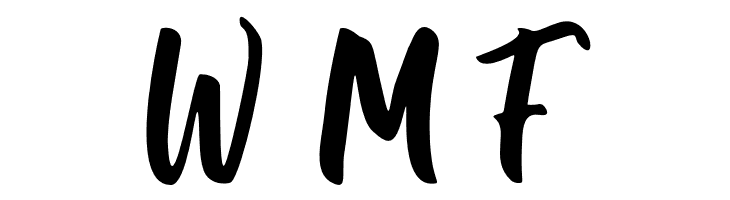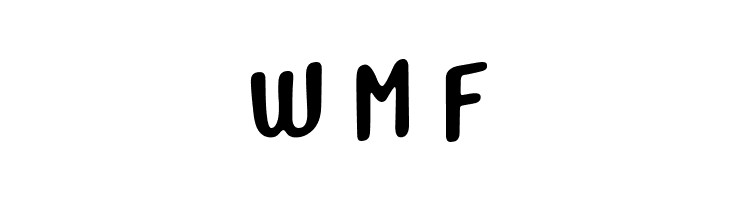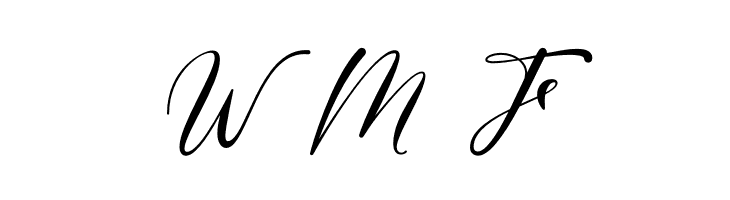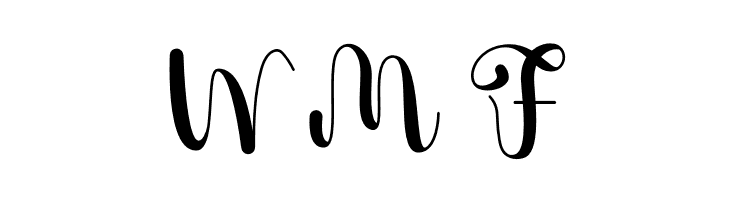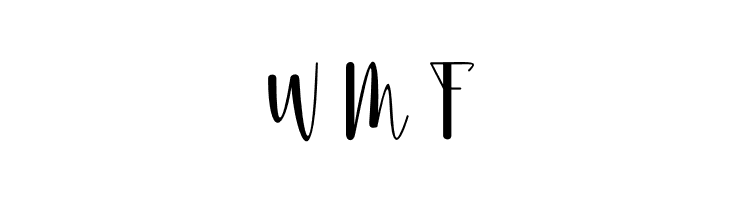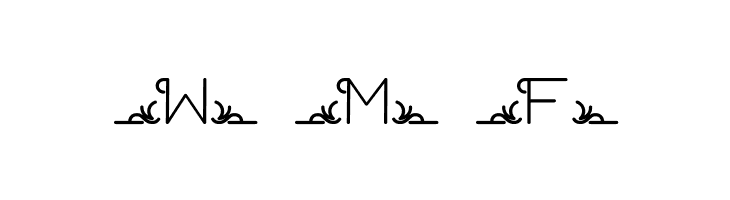
• Deep Shadow Under
A bold, shadowed font with a three-dimensional effect, perfect for impactful designs.
• Deeproxx
A dynamic and fluid script font with elegant curves and a playful style.
• Defgik Serif Regular
A modern serif font with high contrast and elegant serifs.
• Defitta
A lively and elegant script font with flowing curves and dynamic slant.
• DEGANISIOUS DEMO 3
A bold, brushstroke font with sharp, jagged edges and an energetic style.
• Degrasi
A dynamic and elegant script font with fluid strokes and sophisticated flair.
• DehorsDisplay
A bold, vintage-style font with ornamental serifs and a gothic flair.
• Dekker clark Regular
A bold, handwritten font with a playful and dynamic style.
• Delaney Nicholas
A bold, expressive handwritten font with fluid, dynamic strokes.
• Delaney Nicholas
A bold, expressive handwritten font with dynamic strokes and a casual style.
• Delanggi Script
An elegant script font with flowing, handwritten characters.
• Delaproza
A classic serif font with elegant, elongated strokes and sharp serifs.
• delave
An ornate, decorative font with floral embellishments and vintage calligraphy style.
• Delicate1
A delicate, flowing script font with elegant, thin strokes and graceful curves.
• Delicated
An elegant, flowing script font with cursive letterforms and decorative flourishes.
• Delight Cookies
A playful, hand-drawn font with tall, narrow letters and a whimsical style.
• Delight day
A playful, handwritten-style font with dynamic, tall letters and creative flair.
• Delighted Panda
A playful, hand-drawn font with tall, narrow letters and a whimsical style.
• Delighters
A bold, dynamic script font with flowing, cursive letters.
• Delightious
A playful, rounded font with a hand-drawn, whimsical style.
• DelightLove